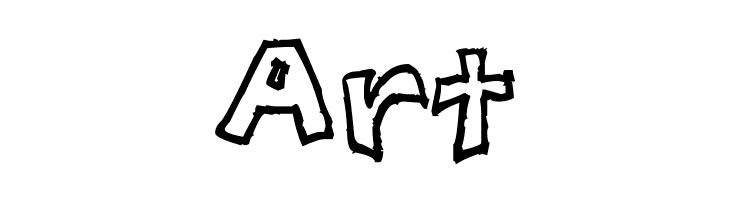
Cartoonish Roman-themed pictorial font with detailed illustrations.
Ornate pictorial font with ancient and historical motifs.
A whimsical, cartoon-like font with unique illustrative characters.
A distressed, vintage-style font with a textured, rugged appearance.
A bold, expressive script font with elegant, flowing cursive letters.
A vintage, typewriter-inspired serif font with a bold, distressed appearance.
A charming script font with fluid, connected strokes and a handwritten style.
A dynamic and flowing script font with elegant cursive letterforms.
A modern, elegant script font with a flowing, handwritten style.
A playful and bold font with unique character shapes and a modern twist.
A dynamic and expressive script font with a handwritten style.
A bold, decorative font with a 3D shadow effect and striped pattern.
A classic serif font with high contrast and elegant, elongated lines.
A decorative, serpentine font with bold, flowing curves.
A bold, decorative font with interconnected loops and curves, ideal for creative display use.
A playful, hand-drawn font with a quirky and lively design.
Playful handwritten script font.
A decorative font with vine-like, organic letterforms.
A bold, geometric font with a strong, industrial aesthetic.
A bold, modern font with geometric lines and tight spacing.
A playful, illustrated display font with character drawings inside shields.
A playful and whimsical cartoon-style font with detailed illustrations.
A modern, decorative font with interconnected, flowing characters.
A modern, flowing font with interconnected, cursive-like characters.
A bold, edgy font with jagged, brush-like strokes and a graffiti-inspired style.
A bold, geometric display font with a retro arcade-inspired style.
A bold, playful font with a retro gaming vibe and geometric shapes.
A vintage, decorative font with ornate, calligraphic letterforms and high contrast.
A casual, handwritten font with a playful and dynamic style.
A playful handwritten font with a casual and friendly style.
A bold, handwritten font with a playful and casual style.